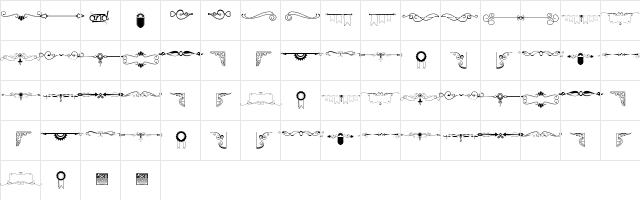
Honey Moon_PersonalUseOnly Regular Free Font
Honey Moon_PersonalUseOnly Regular
Foundry: dcoxy Medina Gregory
Designer: dcoxy Medina Gregory
Design Context for Honey Moon_PersonalUseOnly
Honey Moon_PersonalUseOnly is a composed and adaptable typeface that performs quietly and consistently across a wide range of design contexts.
Who designed the Honey Moon_PersonalUseOnly Regular font?